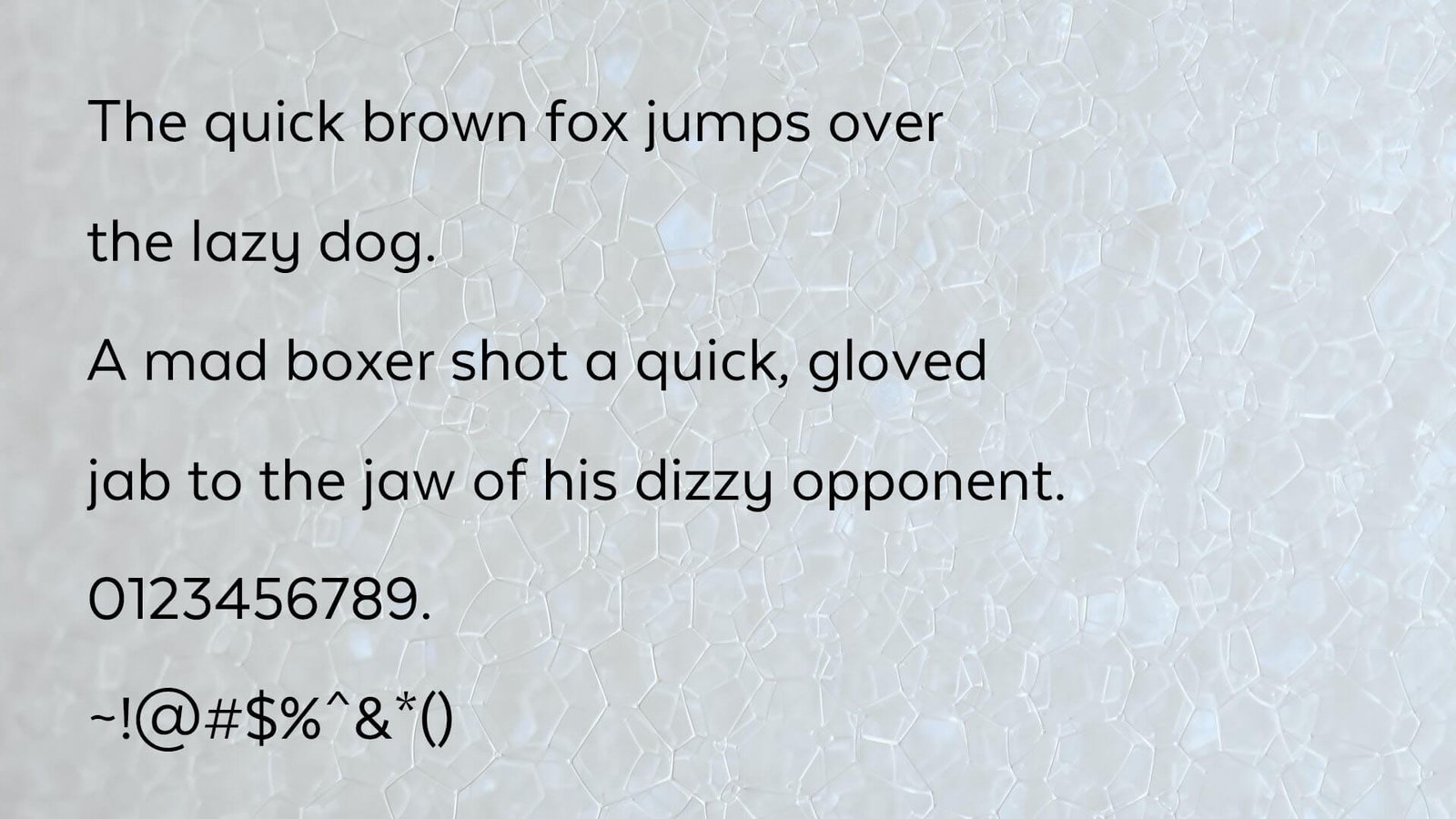
Today we introduce the very beautiful font that is known as Texta font. The designer of this elegant font is Daniel Hernandez.
This typeface is a member of the sans serif family. This font has published by the Latino type. The released date of this typeface is 2014.
| Name | Texta Font |
| Designer | Daniel Hernandez |
This font is based on the Contemporary, Rational, Transparent, and useful sans font it is developed on the humanist’s mode from Edward Johnston to Adrian Frutiger and gothic alphabet signage mind. You can use it by pairing with Museo Sans.